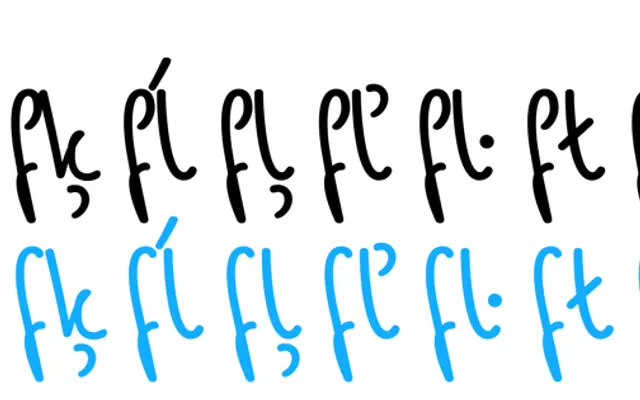
Aniek
Bold Monday · Pieter van Rosmalen · 2009
A seven-weight casual script by Pieter van Rosmalen, drawn from a former girlfriend's handwriting and distinguished by a slight leftward slant.
Monolinear strokes and rounded terminals give Aniek the character of writing with a soft felt-tip pen, while deliberate regularisation of proportions and spacing makes it legible enough for longer passages of body text. Unlike most script typefaces, it leans slightly to the left, lending it an unhurried, conversational quality. Seven weights from Light to Black cover Latin Extended, supporting the majority of European languages.
Aniek is a monolinear, non-connecting script drawn to evoke felt-tip handwriting, with a slight leftward slant distinguishing it from conventional right-leaning scripts. Its even rhythm and regularised proportions place it in the casual handwriting genre rather than formal calligraphic scripts.